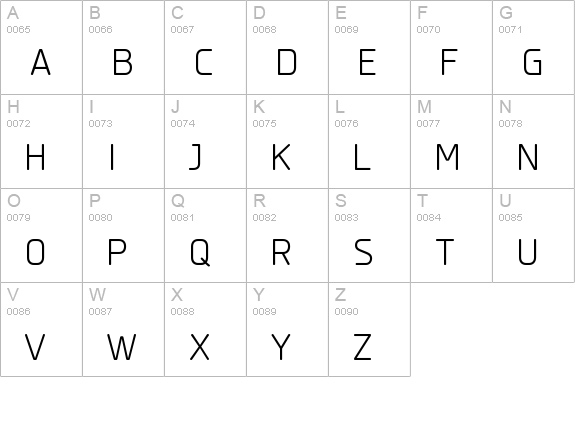
PFIsotextPro-Light is a refined, elegant variant in the PFIsotextPro typeface family \xE2\x80\x94 well suited to elegant body text, refined sub-headings, and luxury branding.
PFIsotextPro-Light is a modern and stylish font that exudes elegance and sophistication. Its clean lines and sleek design make it perfect for a wide range of projects, from branding to editorial design. The light weight of this font adds a touch of delicacy and refinement to any text, making it ideal for conveying a sense of sophistication and professionalism. The best part is that PFIsotextPro-Light is available for free download at FontsMarket.com. This means you can easily add this beautiful font to your collection without having to spend a dime. Don't miss out on the opportunity to enhance your designs with the timeless beauty of PFIsotextPro-Light – download it today and elevate your projects to a whole new level of sophistication.